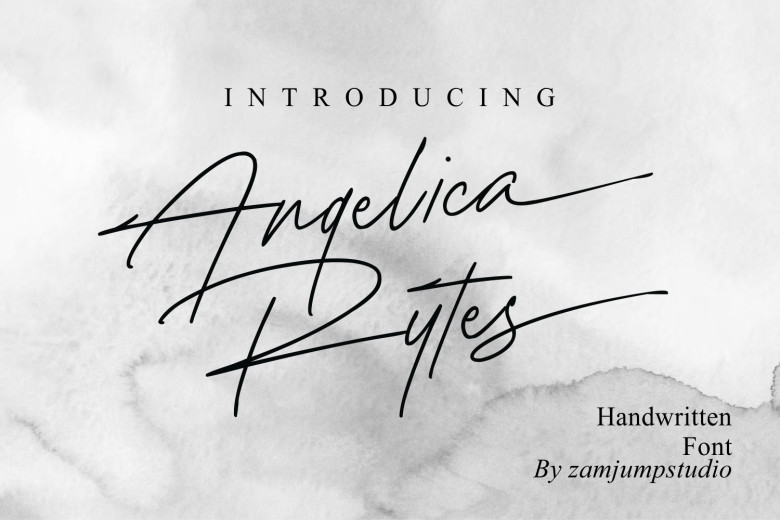
Angelica Rytes Font
Angelica Rytes can be described as an elegant handwritten typeface designed with romantic vibes. Its romantic elegance makes it the ideal font choice for creating distinctive logos, watermarks or designs for photography studios, wedding invitations and fashion designers – as well as quotes, fashion or branding logos for initial logo creations.
Angelica Rytes contains an entire set of handwritten uppercase alphabets and numbers as well as punctuation marks and bindings that give each lowercase letter the appearance of handwriting – ideal for quotes fashion and branding or logo creation projects! Lowercase letters all feature final strokes giving the appearance of handwriting!
Angelica Rytes Handwritten Font